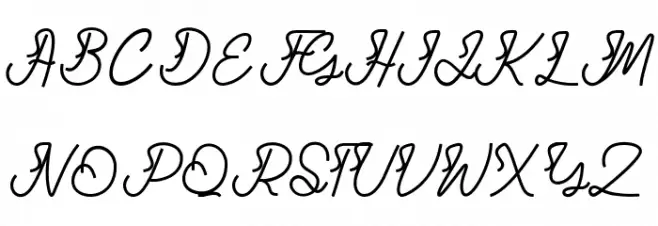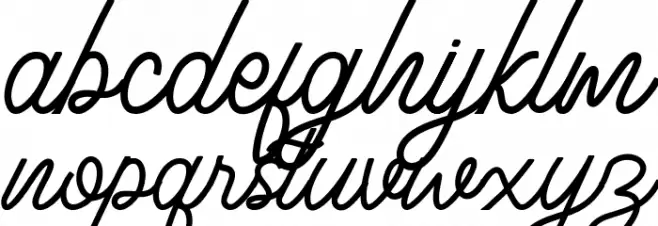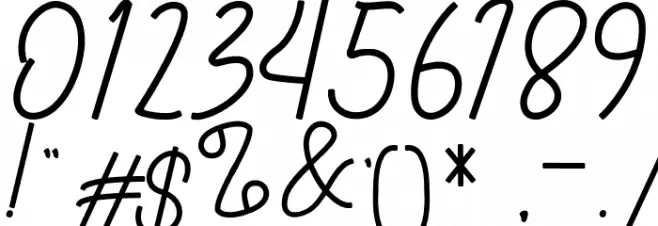
Haristh Shine Font
Haristh Shine Description
This font features a fluid and elegant script style, characterized by its smooth, flowing lines and cursive letterforms. The uppercase letters exhibit a graceful, looping design, while the lowercase letters maintain a consistent, connected appearance, enhancing the script's cohesive look. The numerals and special characters are crafted with the same attention to detail, ensuring a harmonious overall aesthetic. The font's design is both sophisticated and approachable, making it suitable for a variety of applications where a touch of elegance is desired.
A fluid and elegant script font with smooth, flowing lines.
- Font: Haristh Shine
- Proposed Projects: Ideal for wedding invitations, greeting cards, branding, and elegant packaging.
- Category: Script
- Overall Style: Elegant
- Use Case: Logos, Invitations, Decorative text